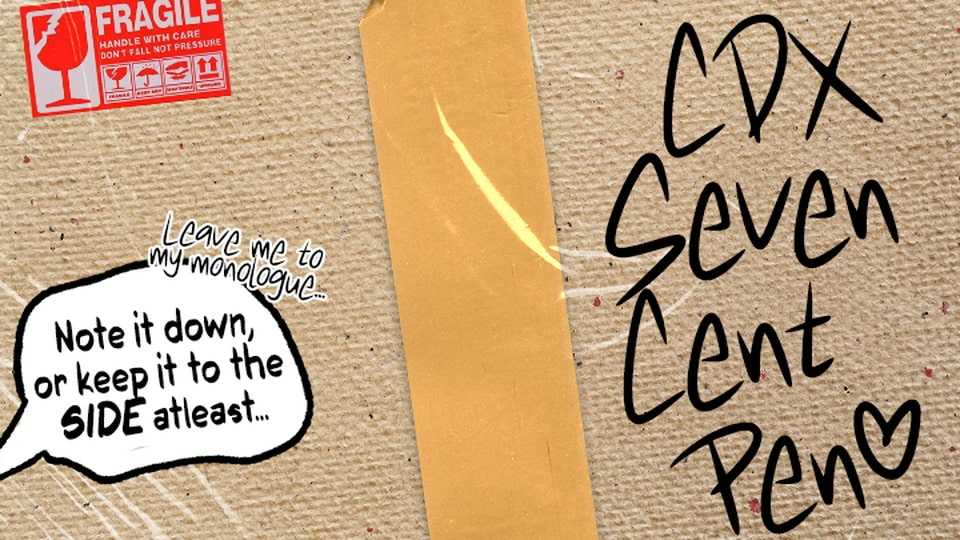
CDX Seven Cent Pen Font › Fontesk – Download Grátis
Download CDX Seven Cent Pen font, a great pen pressure typeface based on a friend’s handwriting. Best used for notes and whatnot.
Designer: Codecy